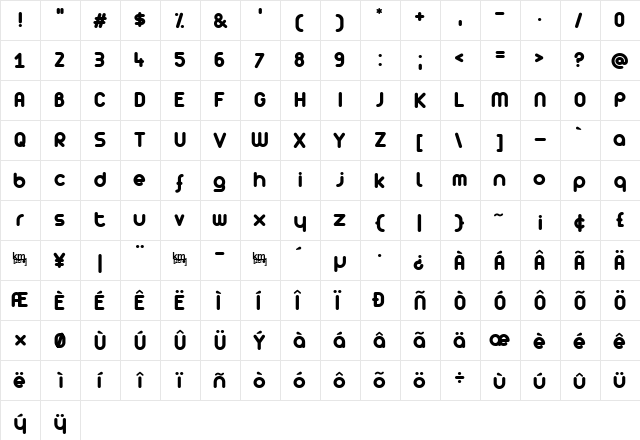
Arista Regular
| Foundry | Studio Kmzero |
| Designer | Francesco 'Mistico' Canovaro - Adolfo Monti |
Design Context for Arista Typeface
Arista is a composed and adaptable typeface that performs quietly and consistently across a wide range of design contexts.